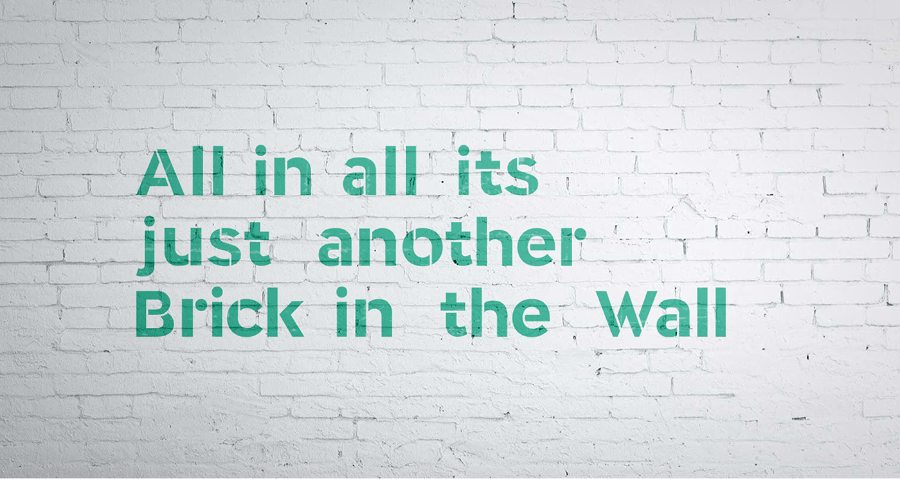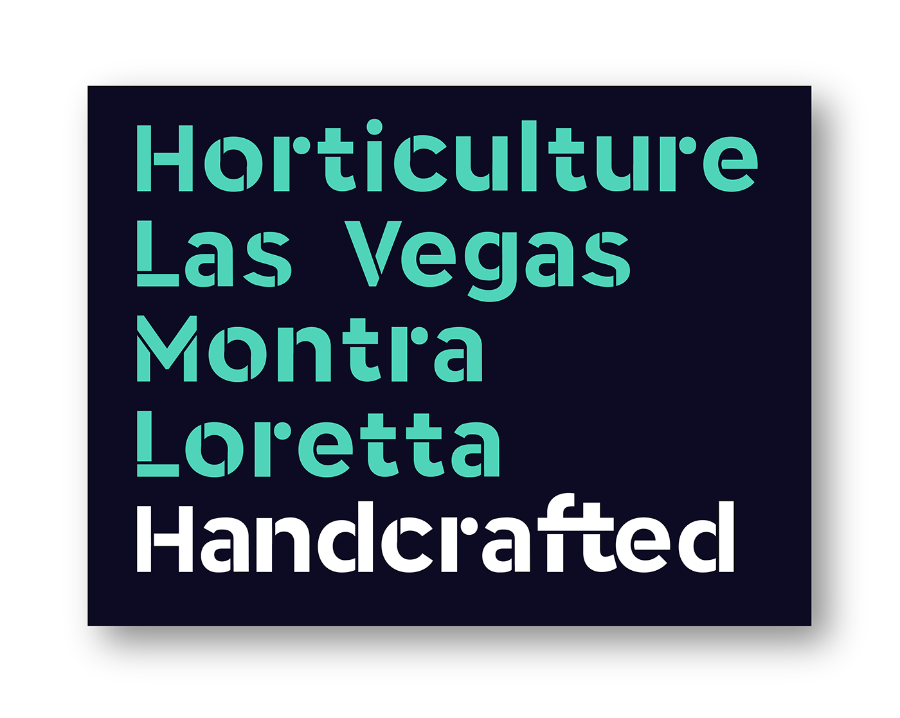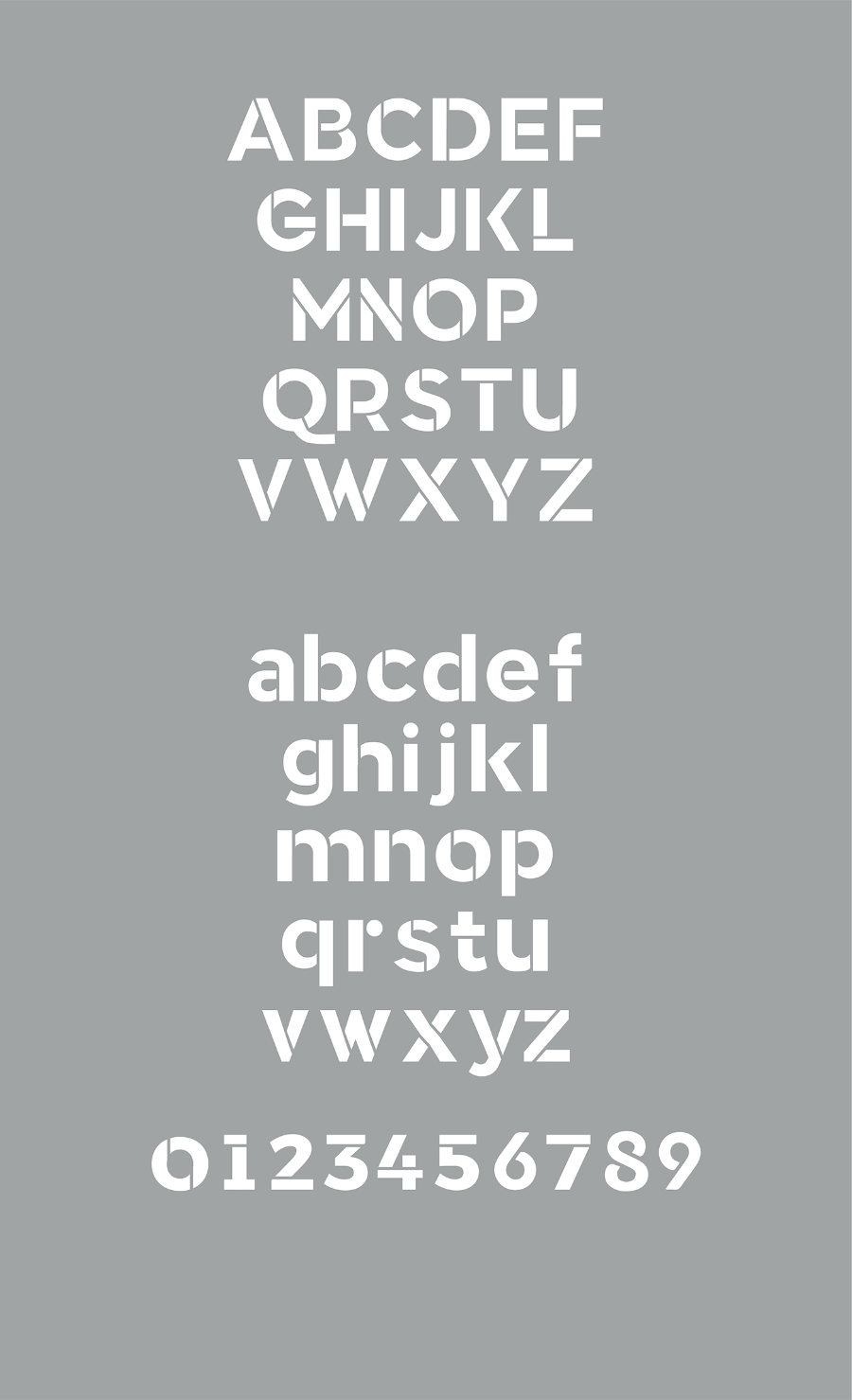
Crafto Stencil Free Typeface
Crafto Stencil Free Typeface is the latest type of design from Athang Samant. Its main purpose is for graffiti, but it surely will look great as headline and branding as well.